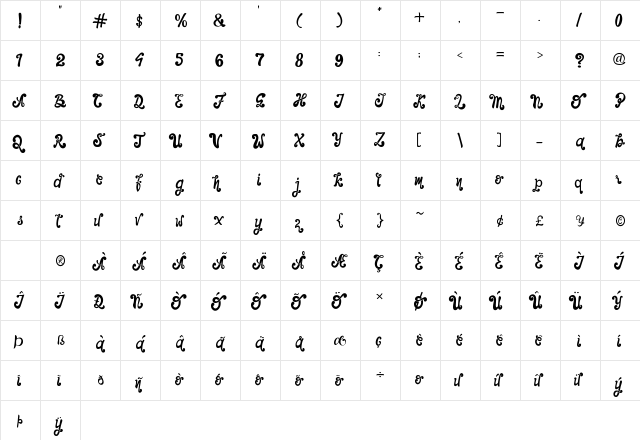
The Foughe Script Regular
| Foundry | Kotak Kuning Studio |
| Designer | Arif Dwi |
Design Context for The Foughe Script Typeface
The Foughe Script brings a calligraphic fluidity to the page — its connecting strokes and expressive curves give it an unmistakably human quality.
Font Pairing: Combine The Foughe Script with a simple geometric sans for maximum contrast — the tension between flowing curves and clean structure is a classic typographic pairing.